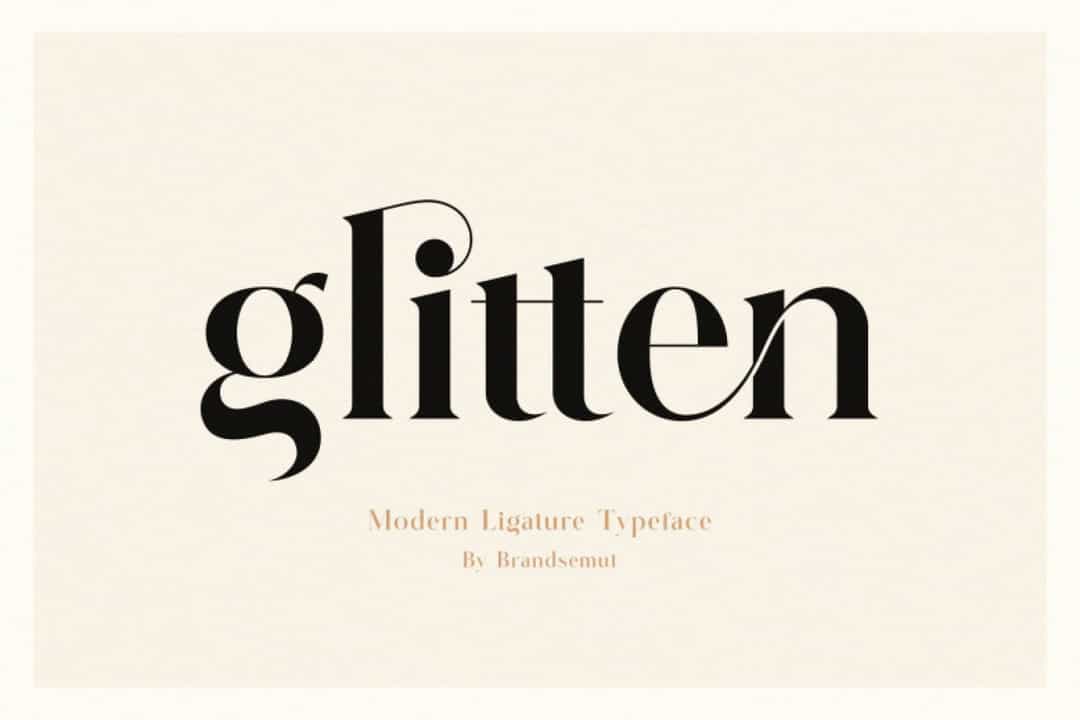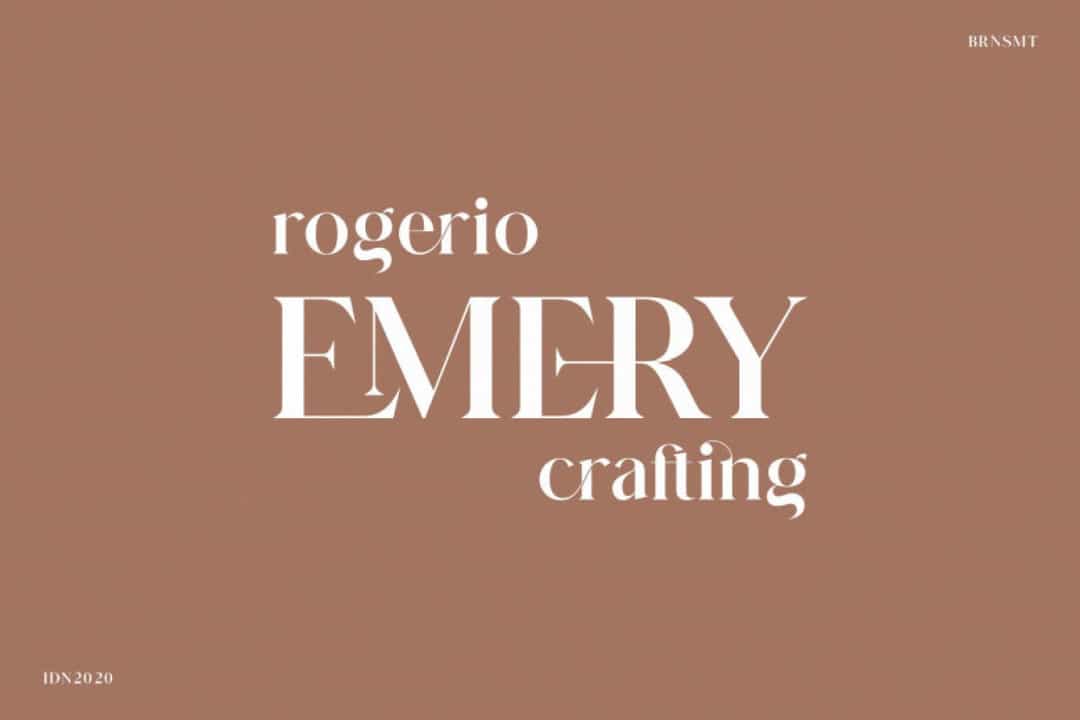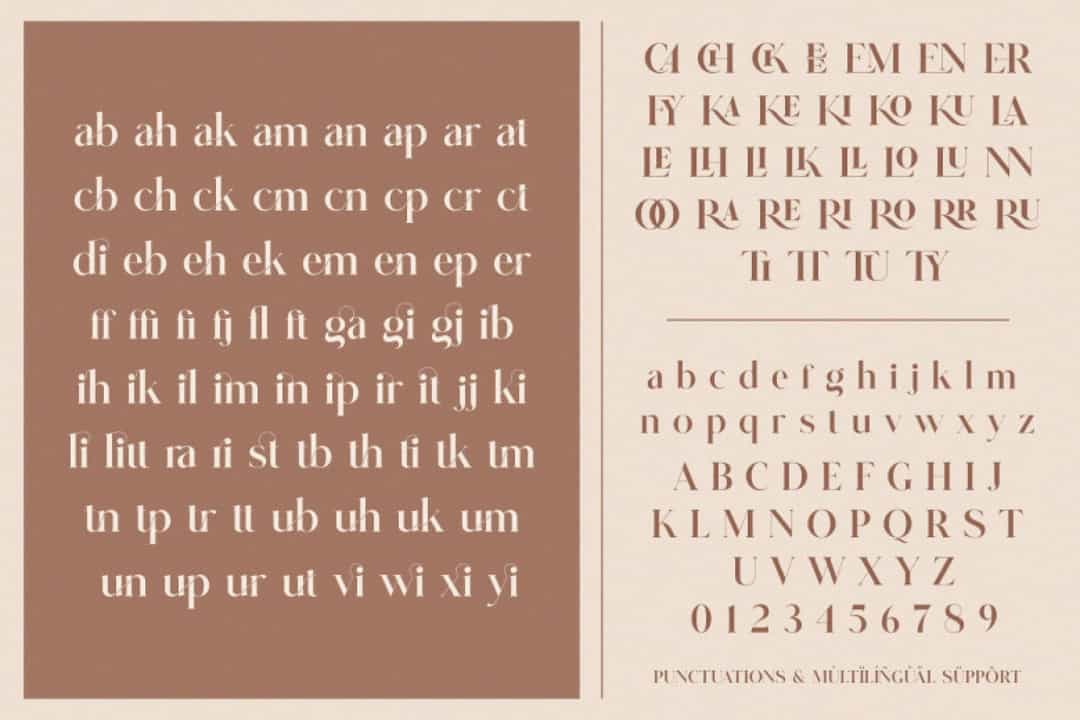
Glitten Ligature is an elegant serif typeface. Perfect for logos, magazines, social media and more; pre-matched and ready for your next project! Glitten Font was developed with Open-Type features, offering more than 98 ligatures, alternate punctuation marks, numbers, and compatibility for different languages.